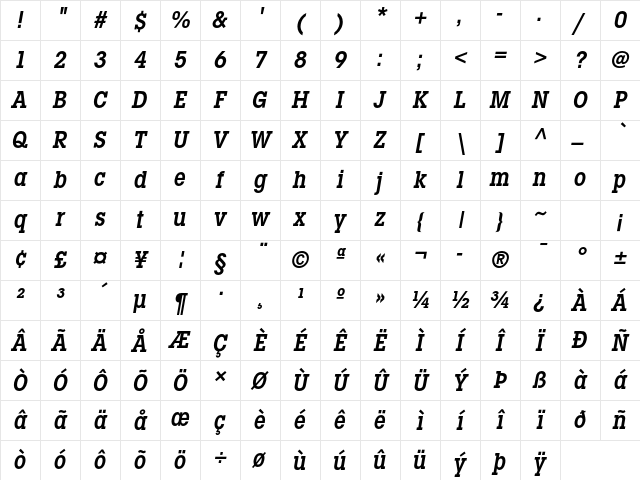
ITC Lubalin Graph Std Demi Bold Condensed Oblique
Style: Demi Bold Condensed Oblique
Designer: Herb Lubalin
Design Context for ITC Lubalin Graph Std
ITC Lubalin Graph Std is a composed and adaptable typeface that performs quietly and consistently across a wide range of design contexts. The slanted form adds forward momentum and visual energy. Its bold stroke weight gives it real presence on the page. Its narrow stance lets it pack a punch even in space-constrained designs.